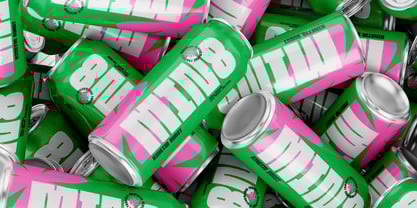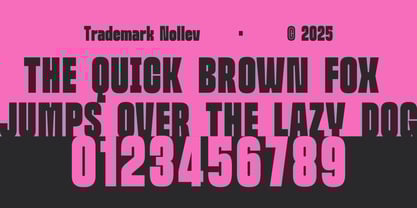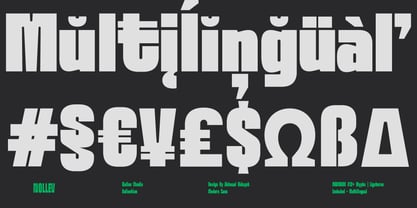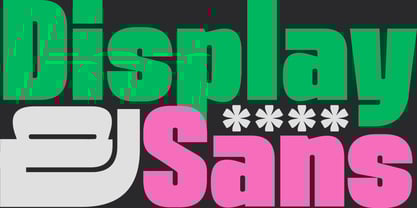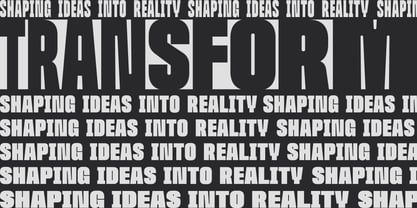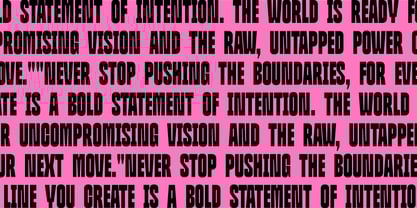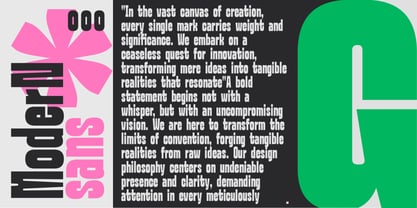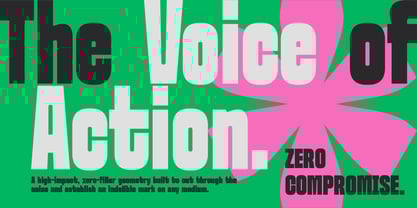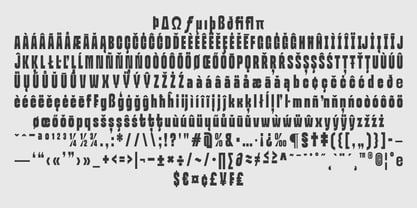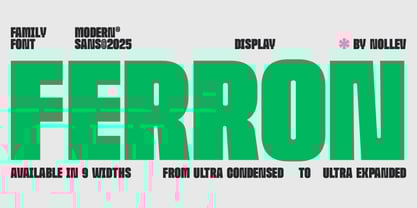
Ferron
by Nollev
The Ferron Font Family was designed by Akhmad Hidayat and published by Nollev. Ferron contains 9 styles and family package options. More about this family
FERRON is a high-octane display typeface designed by Nollev Studio to deliver uncompromising visual strength. Inspired by industrial structures and monumental typography, FERRON features an incredibly bold weight and compact proportions that capture immediate attention. The centerpiece of FERRON is its revolutionary versatility: it is available in a spectrum of 9 distinct widths, ranging from the dramatically narrow Ultra Condensed to the robustly expansive Ultra Expanded. This extensive range offers designers unparalleled control, allowing FERRON to adapt perfectly to any layout size, from tight packaging labels to huge billboards. Key Features & Ideal Use:. Ultra-Heavy Weight: Ensures maximum visual dominance and readability, even from a distance. 9 Width Options: Provides exceptional flexibility for dynamic typography and variable font use. Block Geometry: Delivers a solid, modern, and serious aesthetic. Ideal for: High-energy product branding, sports and gaming titles, movie posters (Action/Thriller), impactful magazine headlines, and streetwear logos. When you need a font that embodies unshakeable confidence and sheer visual power, choose FERRON.
Designers: Akhmad Hidayat
Foundry: Nollev